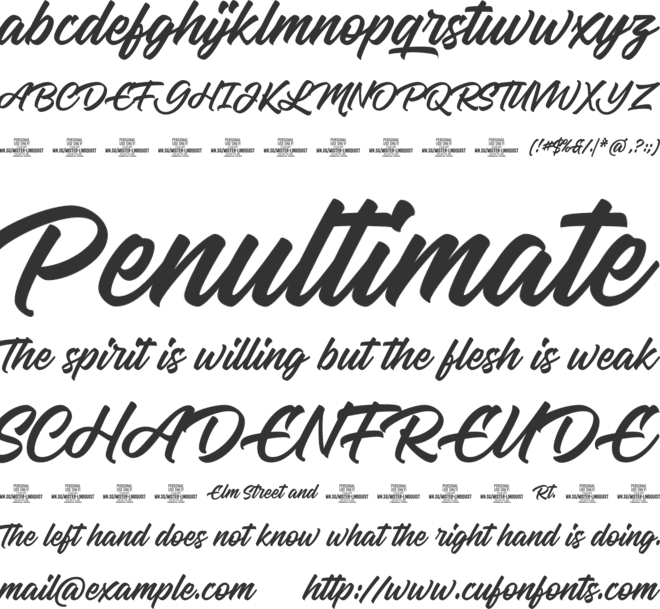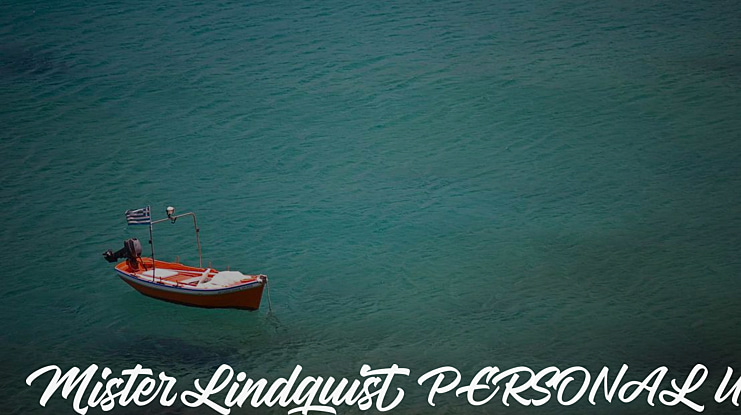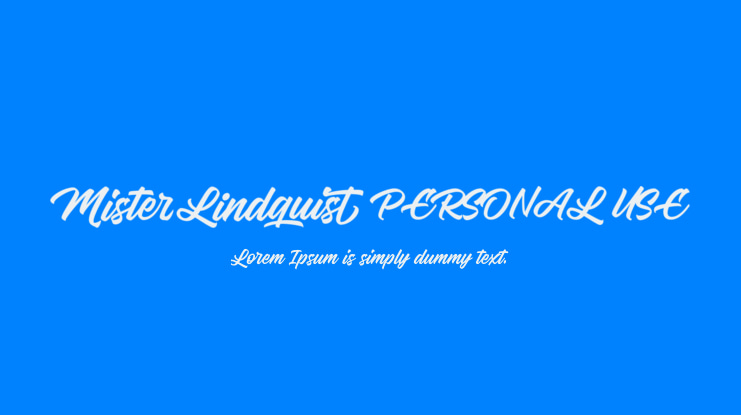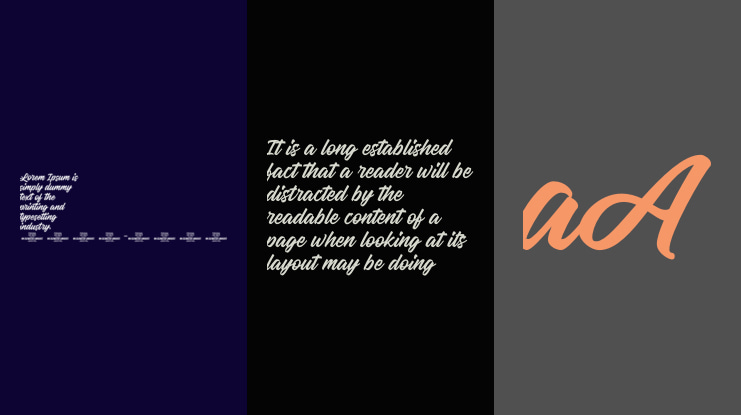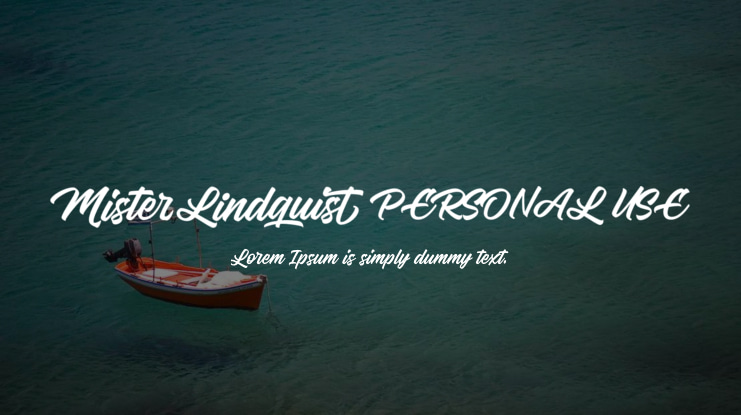
Mister Lindquist PERSONAL USE Font
Please note that this font is only intended for personal use. If you would like to purchase a commercial license, please visit http://mn.sg/mister-lindquist. Mister Lindquist is a calligraphic font that combines the art of vintage sign painting with the expressive movements found in bold signatures. It truly captures the essence of a time when craftsmanship was valued. To create an underline, use an underscore (_). For example: Scr_ipt. If you want longer swashes, use multiple underscores. For example: Extr___eme. If you have any questions, please visit www.mansgreback.com/faq.